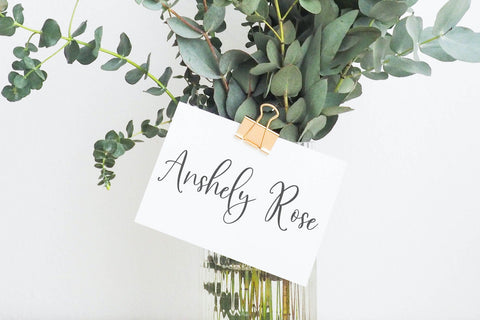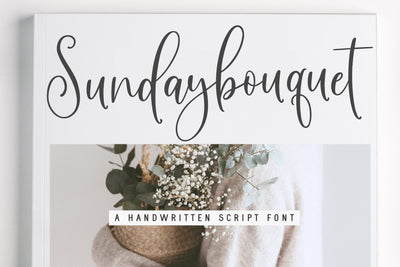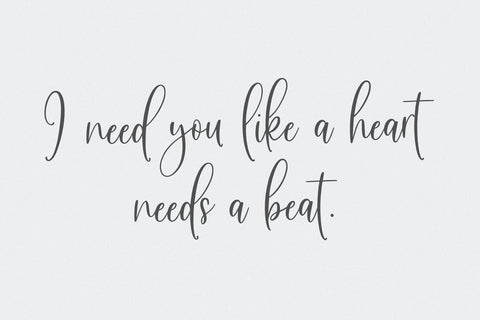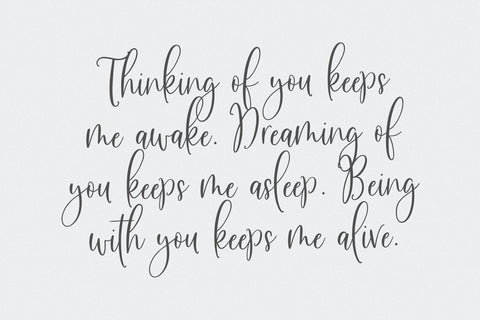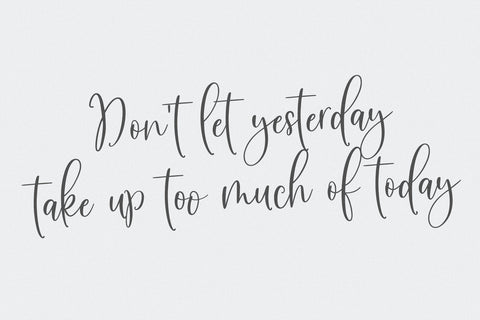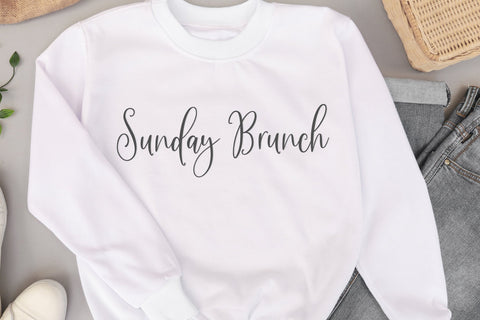
Sunday Bouquet Font
Sunday Bouquet is a handwritten script font, It is perfect for branding, books, heading, webs, cards, wedding invitations, quotes, watermarks, and more.
Multilingual support:
ÁÂÄÀÅÃÆÇÉÊËÈÍÎÏÌÑÓÔÖÒØÕŒŠÚÛÜÙÝŸŽ
àáâãäåæçèéêëìíîïñòóôõöøœùúûüýÿšž